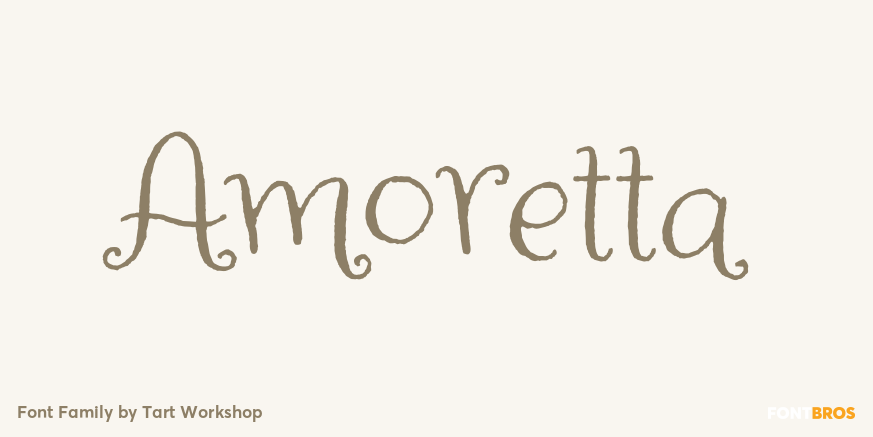
Amoretta
About Amoretta
Amoretta = Little Love. Our sweet Amoretta is optimistic & bright. A charming balance of youth and sophistication, Amoretta is full of opportunity for print (Identity projects, stationery, book design, packaging design) or online applications (eBooks,…